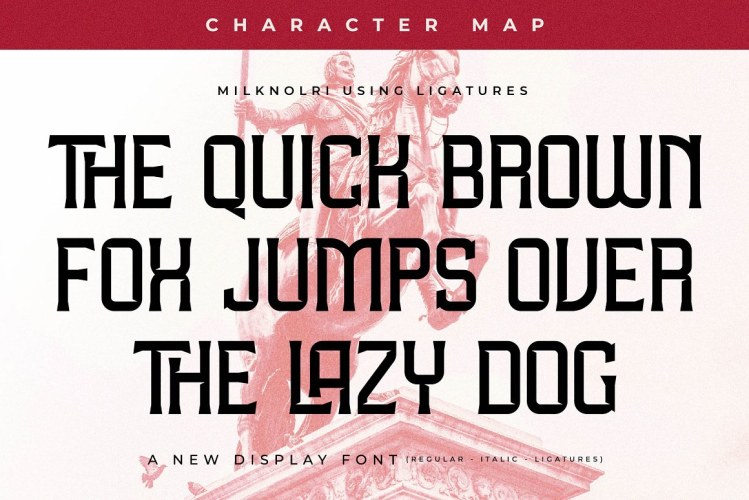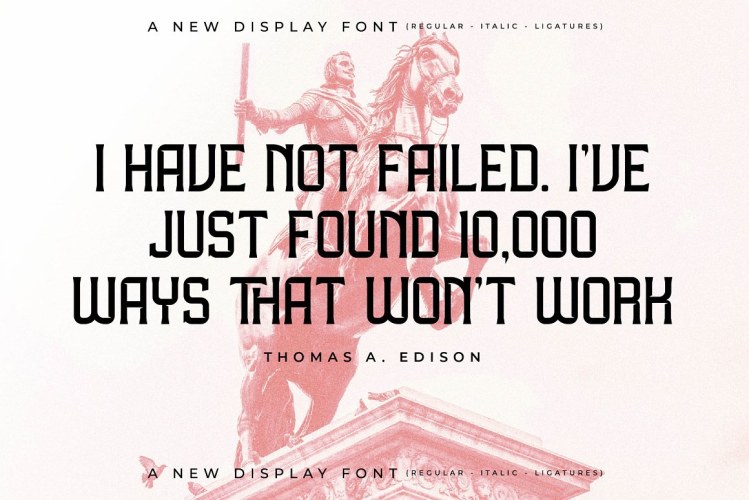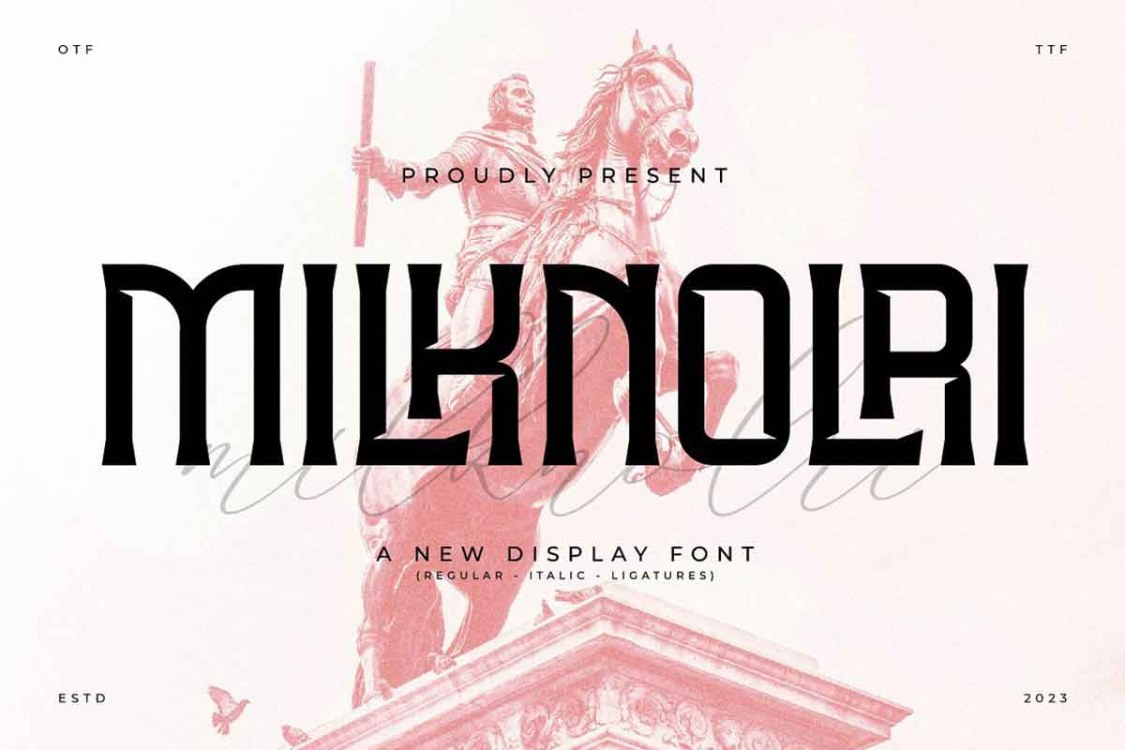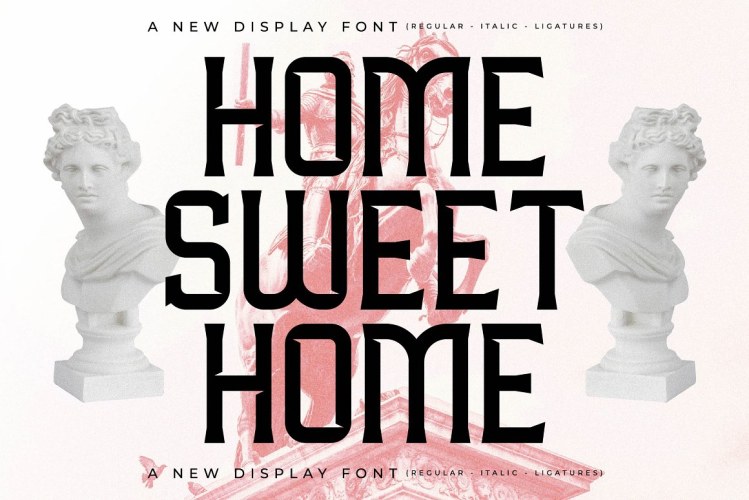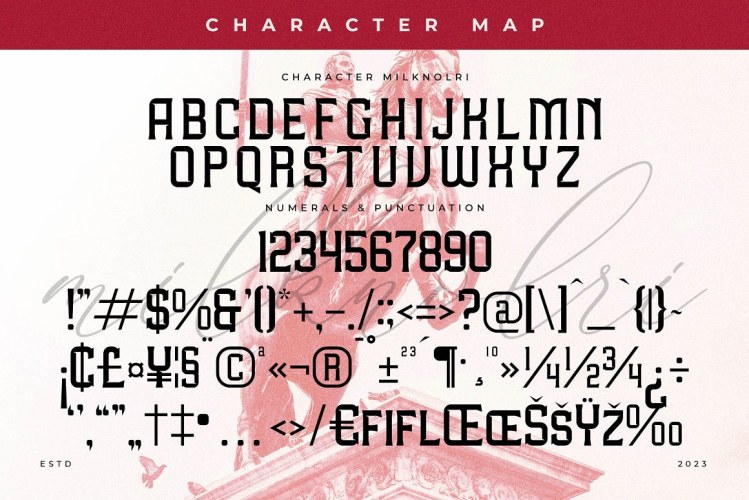
Milknolri A New Display Font
Proudly present Milknolri Typeface , created by Storytype, A serif modern and classic typeface that has own unique style & modern look. This typeface is perfect for an elegant & luxury logo, book or movie title design, fashion brand, magazine, clothes, lettering, quotes, and so much more.
Milknolri A New Display Font is a Display Fonts font that brings a professional and versatile look to your projects. Proudly present Milknolri Typeface , created by Storytype, A serif modern and classic typeface that has own unique style & modern look.